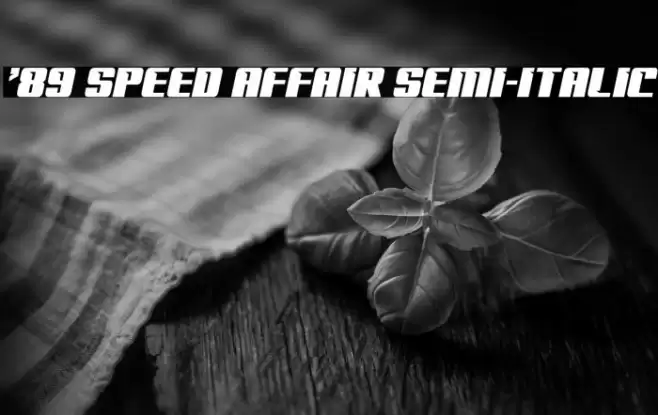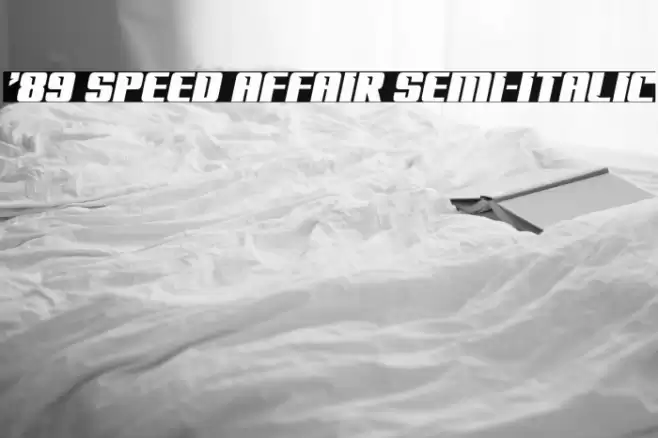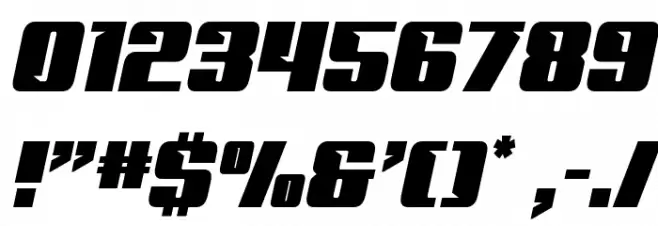
'89 Speed Affair Semi-Italic Font
'89 Speed Affair Semi-Italic Description
This font exudes a dynamic and energetic vibe, characterized by its bold and italicized letterforms. The angular cuts and sharp edges give it a sense of speed and motion, making it ideal for projects that require a modern and edgy look. The uppercase and lowercase letters maintain a consistent style, with a slight slant that enhances its italic nature. The numerals and special characters are designed to complement the overall aesthetic, ensuring uniformity across all text elements. The font's bold weight and condensed width make it stand out, perfect for grabbing attention.
A bold, italicized font with sharp, angular edges, exuding speed and energy from Regular fonts.
- Font: '89 Speed Affair Semi-Italic
- Proposed Projects: Ideal for sports branding, automotive advertisements, dynamic posters, and modern logo designs.